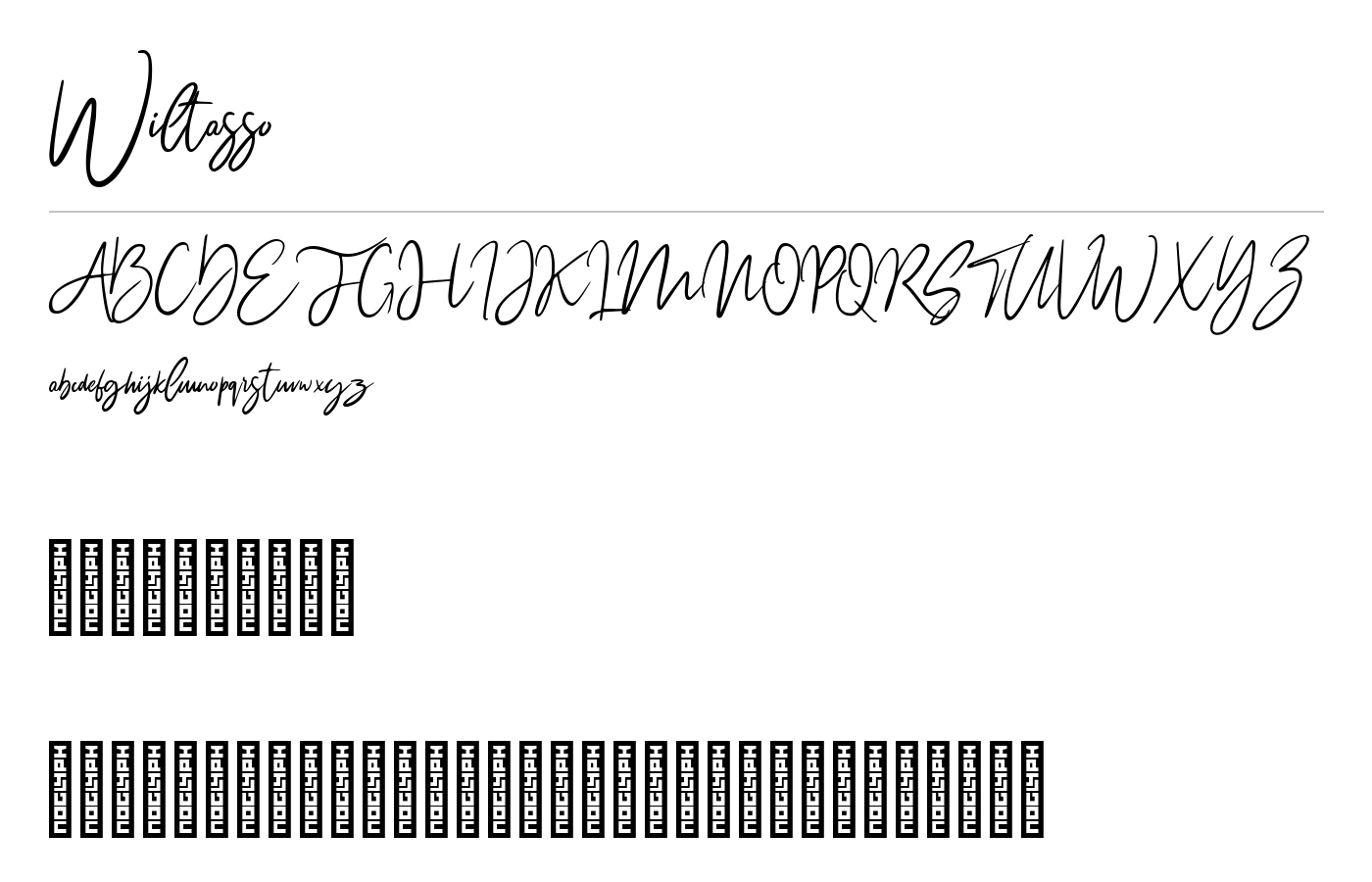
Wiltasso is a delicate and elegant script font characterized by its tall, flowing letterforms and thin, expressive strokes. Its handwritten style conveys a modern yet personal touch, making it ideal for stylish branding, invitations, and artistic projects that seek a refined and approachable feel. This font works beautifully in headlines and decorative text where a graceful, sophisticated look is desired.
Wiltasso Font
About Wiltasso Font
| Designer | Amir SUbqi Setiaji |